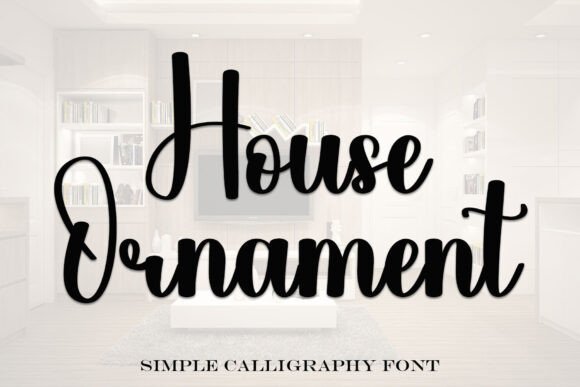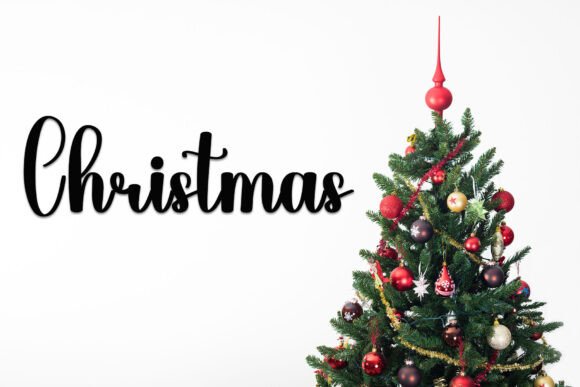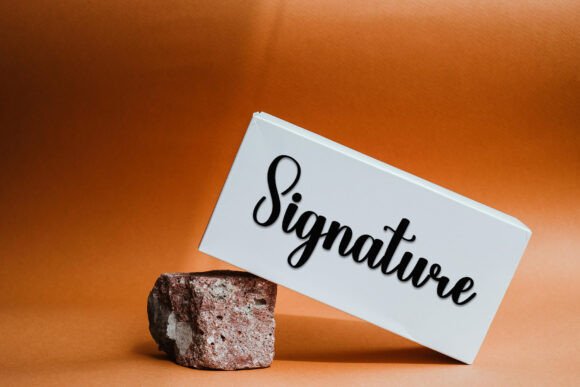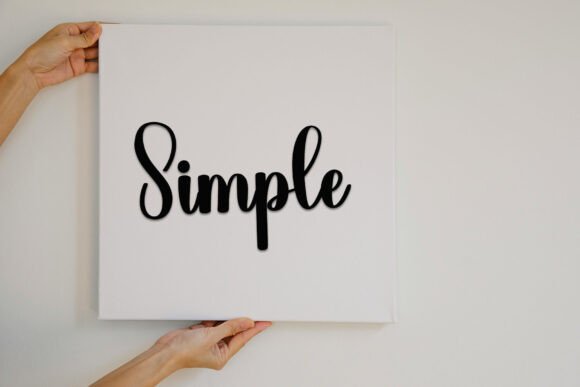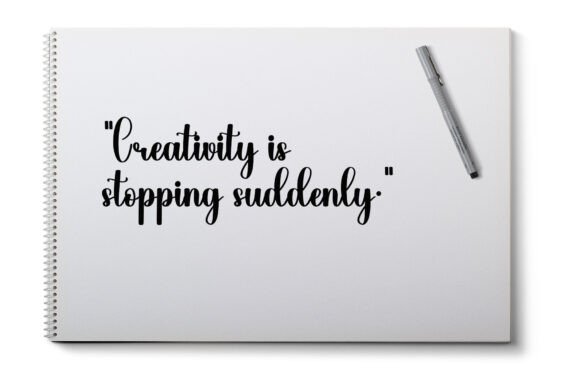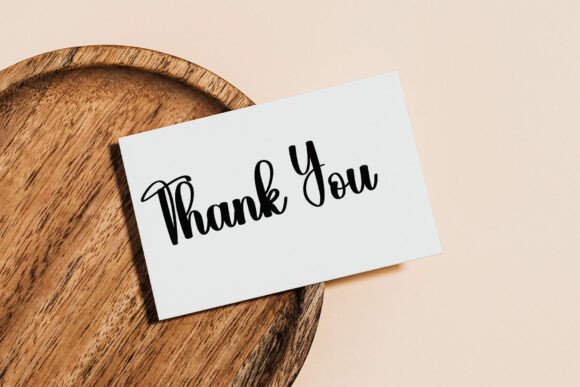
Unleashing the Charm of House Ornament Font
You’ve just landed on the perfect project – a wedding invitation that exudes romance and sophistication. As you begin brainstorming ideas, your mind starts racing with possibilities. But what really sets the tone for this special day is the typography. A beautiful, elegant font can make all the difference, and that’s where the House Ornament Font comes in.
With its timeless classic calligraphy style, this trendy handwritten font adds a touch of class to any design project. Its contemporary atmosphere is sure to leave a lasting impression on your audience. Whether you’re a seasoned designer or just starting out, the House Ornament Font is an invaluable addition to your toolkit.
Key Features of House Ornament Font
- Unique Characteristics: Ornate, decorative, and hand-drawn design elements
- Font Style: Script, Calligraphy, and Decorative font styles available
House Ornament Font Review
I recently had the chance to work with the House Ornament Font, and I must say it’s a mixed bag. Here are my thoughts:
- Unique aesthetic: The font has a distinct, whimsical feel that’s perfect for projects that need a touch of personality.
- Playful feel: The font’s ornamentation and flourishes add a sense of playfulness, making it ideal for children’s books, party invitations, or other fun projects.
- Customization options: The font offers a range of customization options, including different ornament styles and sizes, which can help you tailor it to your specific needs.
- Limited legibility: The font’s ornate design can make it difficult to read, especially at smaller font sizes.
- Not suitable for body text: Due to its playful nature, the font isn’t suitable for large blocks of body text, where readability is crucial.
Overall, I think the House Ornament Font is a great choice for projects that require a unique, playful touch. However, it’s not suitable for every project, and you should be aware of its limitations before using it. With some careful planning and placement, it can add a lot of character to your designs.
Getting the Most Out of House Ornament Font
Here are some tips to help you get the most out of House Ornament Font:
- Combine House Ornament Font with other fonts to create a unique look.
- Use the font to add a touch of whimsy and playfulness to your designs.